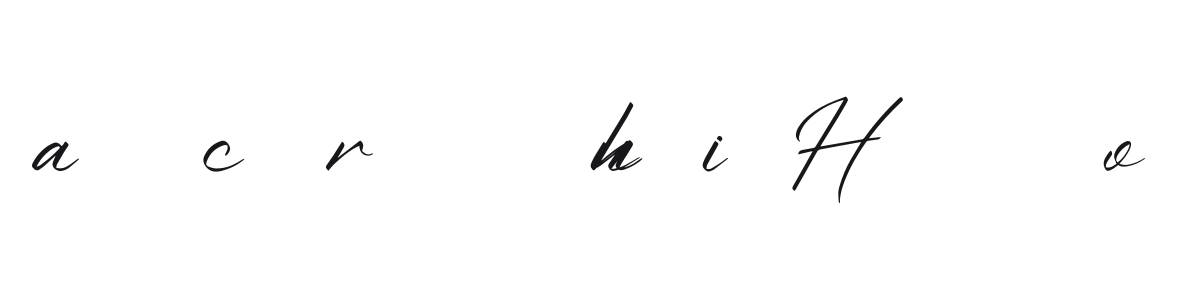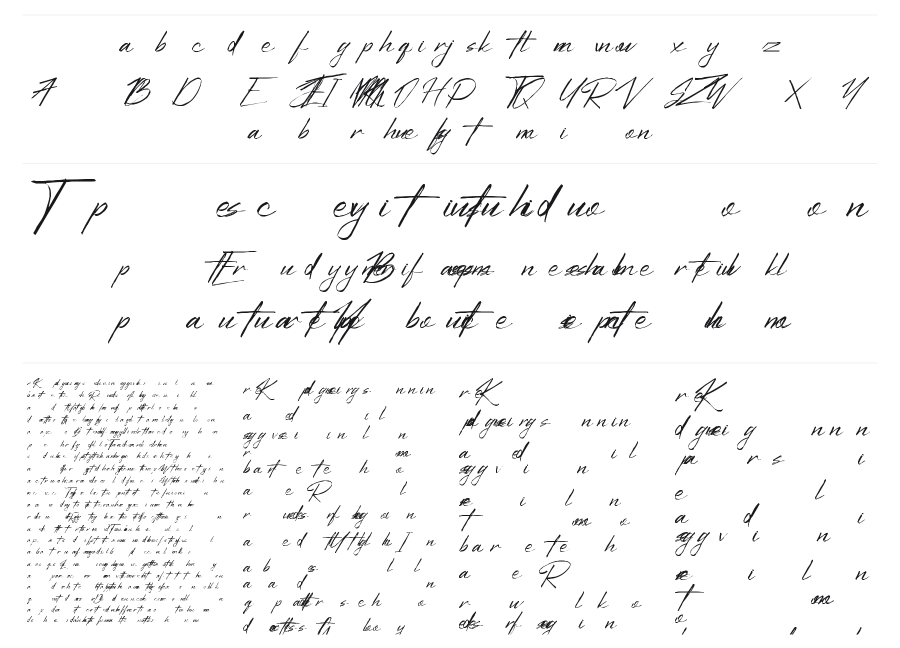
Hachirou
Hachirou is a casual signature script that mimics the spontaneous energy of a hand-signed autograph rendered in fine ink. Hairline connecting strokes flow into slightly heavier letterforms with long sweeping ascenders and descenders that give the design its dramatic, airy character. It carries a refined, personal quality that suits luxury branding, wedding stationery, and fashion editorial work.